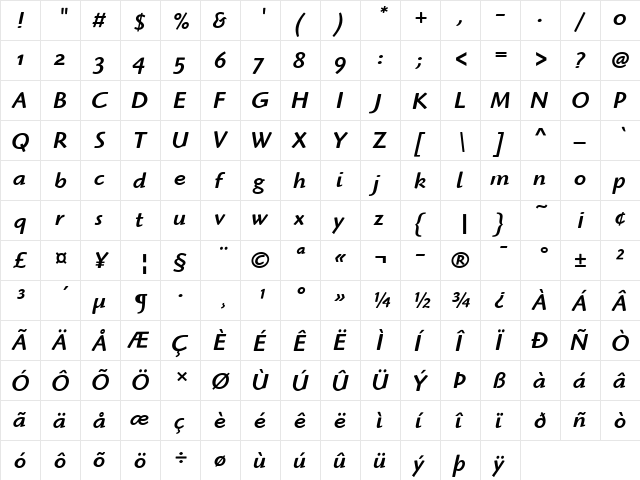
Highlander ITC Medium Italic
Design Context for Highlander ITC Typeface
Highlander ITC takes a measured approach to typography — its balanced proportions and neutral character make it a reliable workhorse for both digital and print work. The dynamic lean of this cut emphasises speed and emphasis in any layout.
Pro Tip: Try Highlander ITC for annotation and caption copy alongside an upright companion — the contrast in angle creates a dynamic but ordered typographic system.